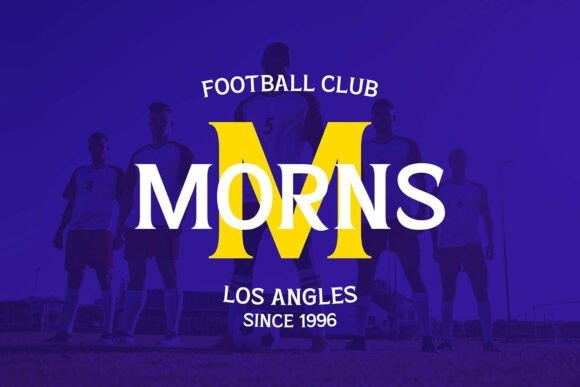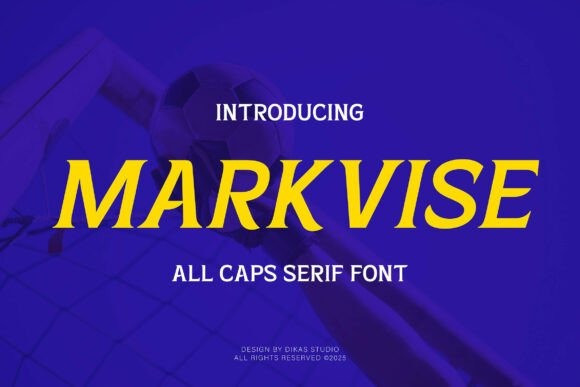
Markvise Font
Markvise Font is a bold serif font inspired by vintage sports design. It combines strong, confident letterforms with classic serif details, creating a look that feels both retro and powerful. Available in Regular and Oblique styles, Markvise delivers versatility for logos, posters, jerseys, and headlines that need a touch of vintage athletic spirit. Perfect for capturing the timeless energy of old-school sports aesthetics.